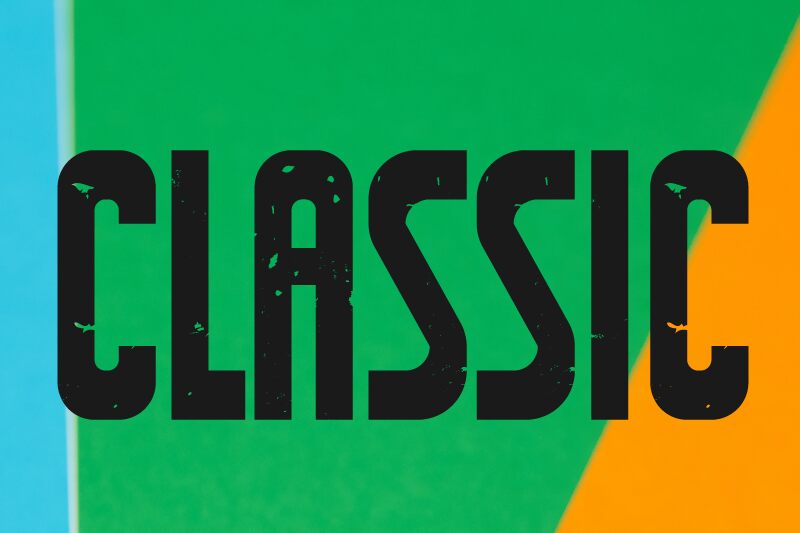
Classic
Looking for a font that exudes a timeless appeal with an edgy twist? Look no further than Classic, the latest display font designed by Design Vector10. With its eroded style and semi-bold weight, Classic is perfect for projects that require a vintage look with a modern edge. Its extra-condensed width makes it ideal for headlines, logos, and any text that needs to pack a punch in limited space. Whether you're designing an album cover or creating packaging for artisanal goods, Classic will add personality and character to your project. Try it out today and give your designs the iconic touch they deserve!